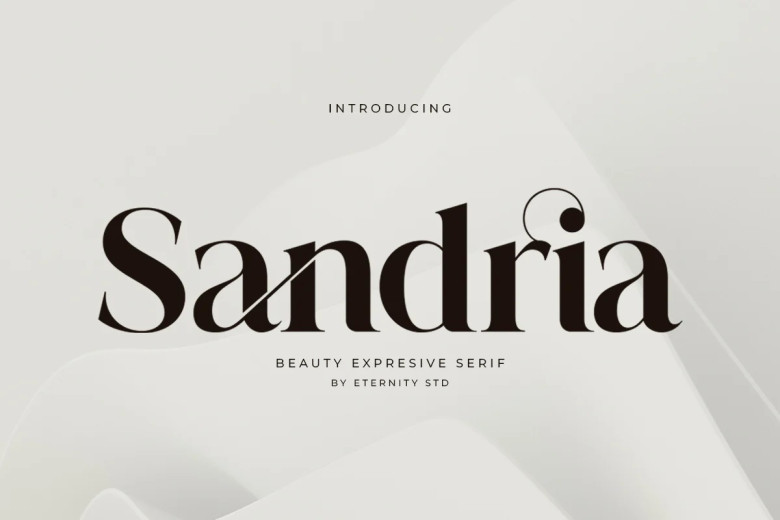
Sandria Font
Sandria is a beauty expresive serif font. Due to the clean lined and elegant swash and ligatures of the font, Sandria is applicable for any graphic design project. In a logo, a poster or a fantastic website, this font is a perfect fit.
Sandria Serif Font